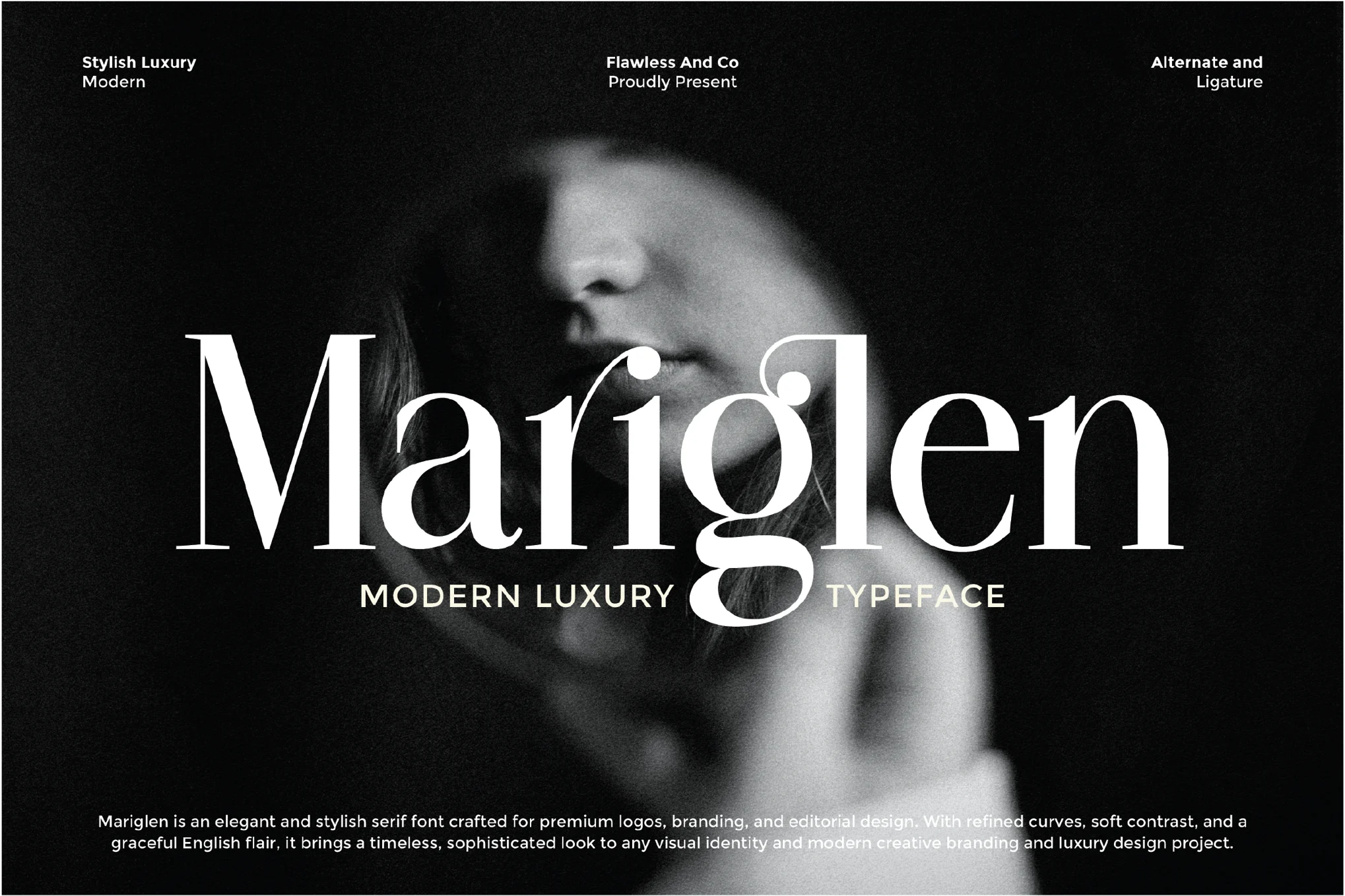
Mariglen Font Serif
Mariglen Font is a modern and luxurious serif typeface designed to embody timeless elegance. With its refined curves, high contrast, and graceful details, Mariglen stands out among serif fonts for its ability to blend sophistication with clear readability. This makes it the perfect choice for premium branding, editorial layouts, fashion projects, and luxury logo design, adding a modern classic touch to every creative work.
As part of today’s most versatile modern fonts, Mariglen adapts beautifully across different design applications. From magazines and product packaging to wedding invitations and luxury brand identities, it elevates every project with a stylish and professional flair. Its strong yet graceful aesthetic ensures that your message is both visually captivating and easy to read.
Designed for designers, creatives, and brands seeking timeless charm, Mariglen is more than just a font it’s a statement of style. Luxury fashion labels, wedding stationery designers, editorial projects, beauty brands, and lifestyle businesses can all benefit from its refined lettering and high-class aesthetics. With alternates, ligatures, multilingual support, and elegant details, Mariglen helps every project achieve a polished and sophisticated identity.